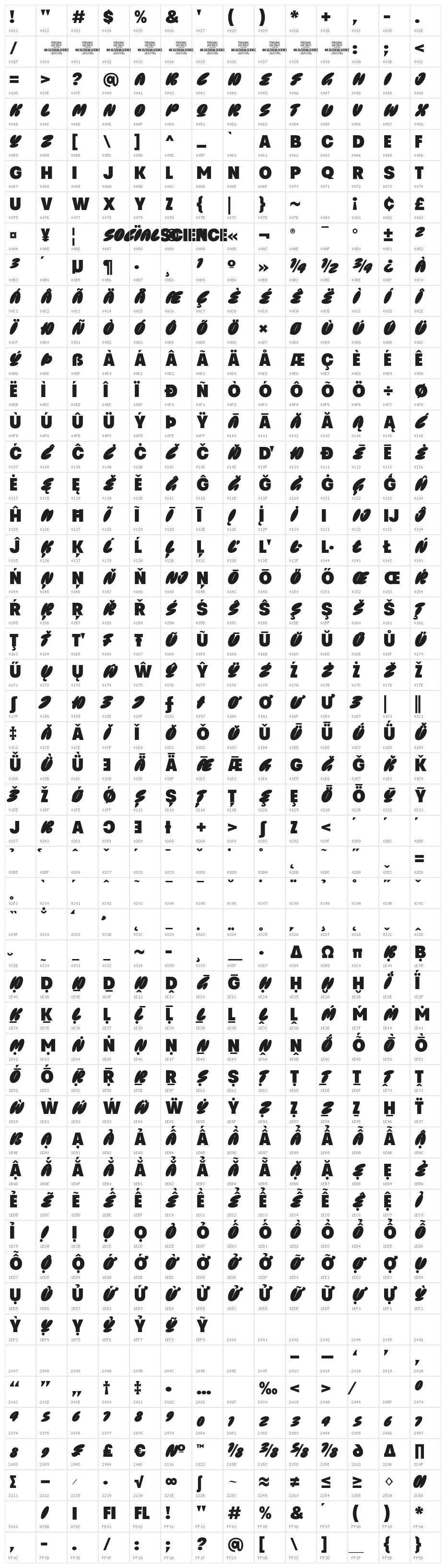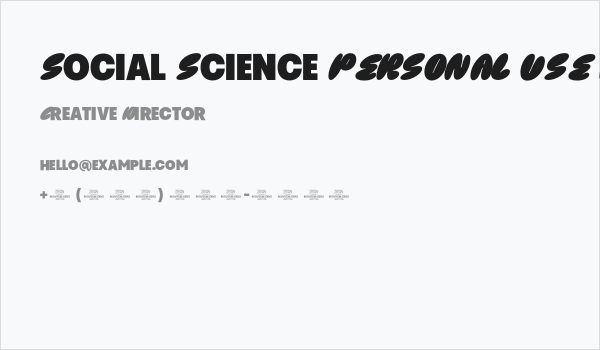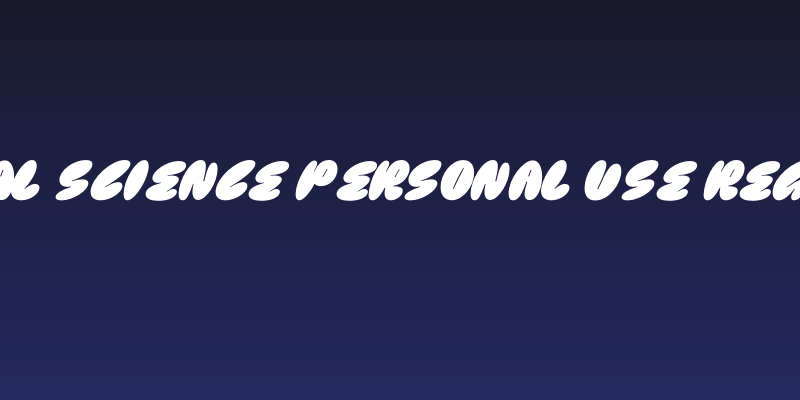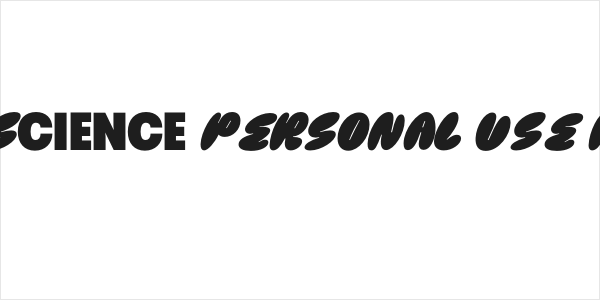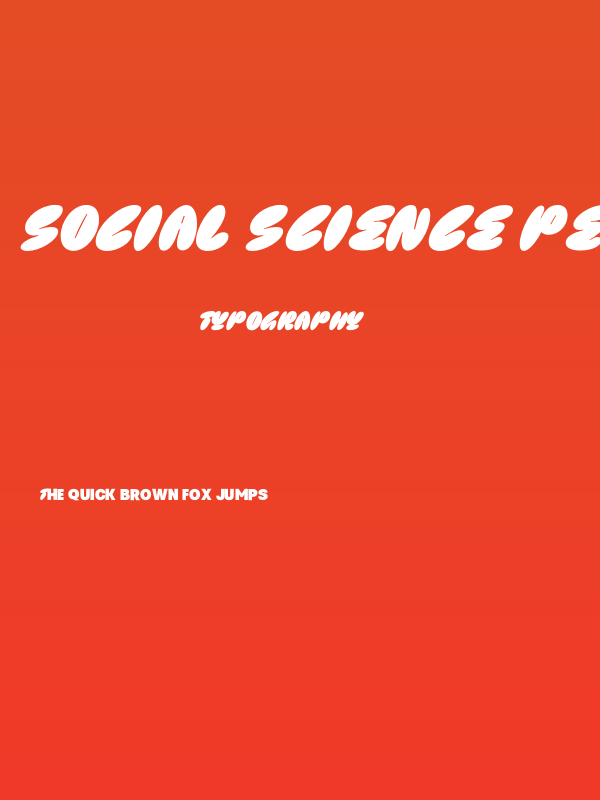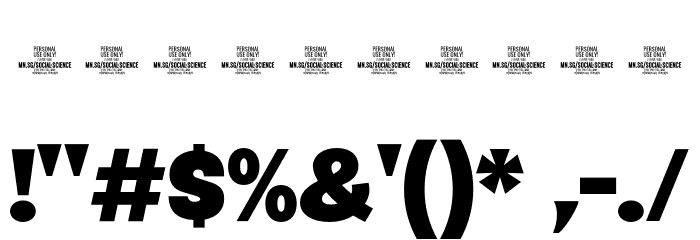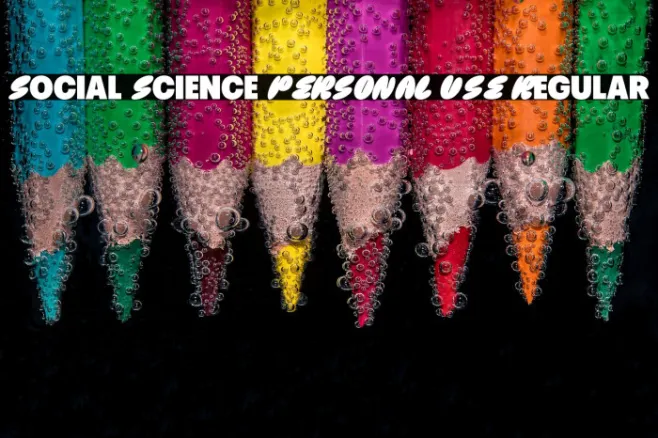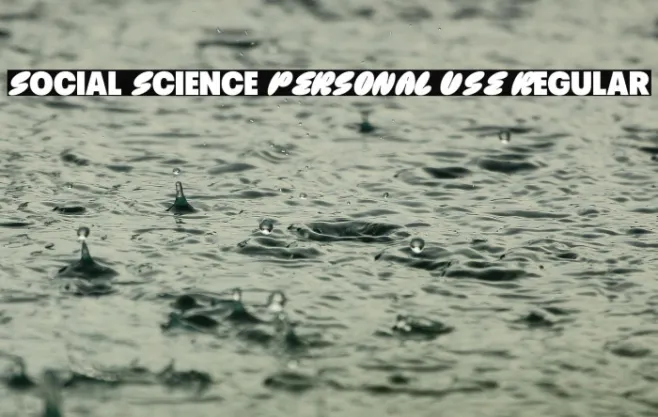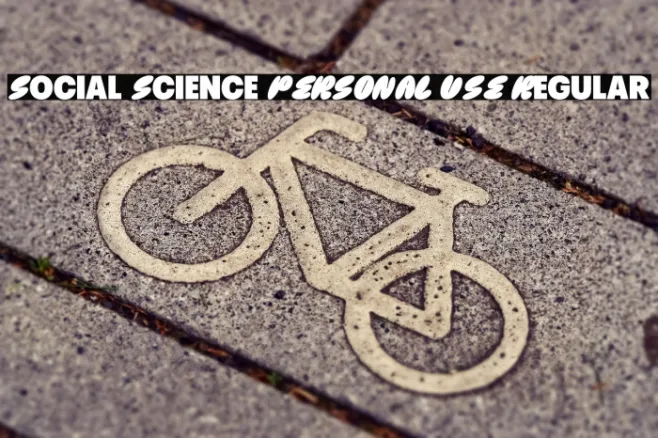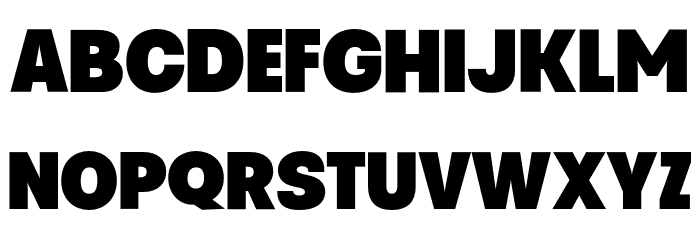
Social Science PERSONAL USE Regular Font
Social Science PERSONAL USE Regular Description
This font features a bold and playful style with a strong presence. The uppercase letters are rounded and thick, giving a sense of fun and approachability. The lowercase letters maintain the same boldness, ensuring consistency across the typeface. The numerals and special characters are equally robust, making them stand out in any design. This font is ideal for projects that require a lively and energetic feel, such as posters, advertisements, or branding materials. Its bold nature ensures that it captures attention while maintaining readability.
| Overall Style | Playful, Energetic |
| Proposed Projects | Perfect for posters, advertisements, branding materials, and any project needing a fun, energetic vibe. |